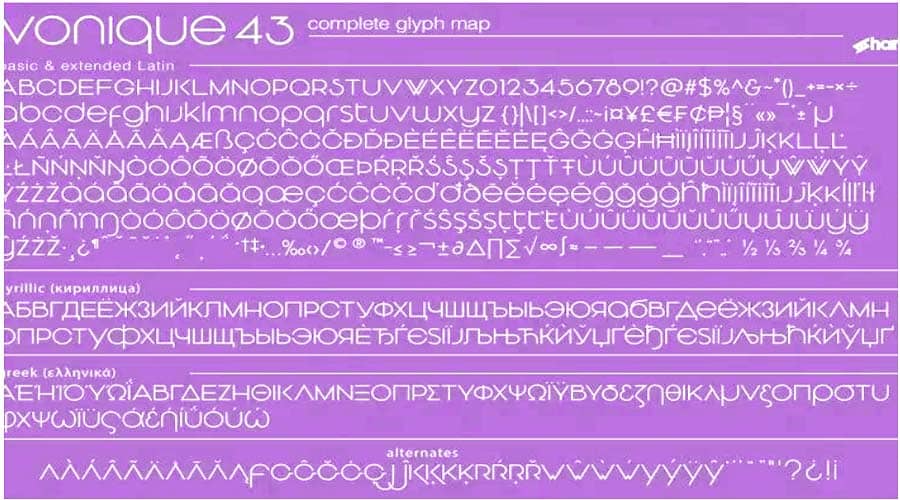
Vonique 43 Typeface
Vonique 43 Font is a sans serif typeface that is both trendy and simple. Sharkshock created and published it on April 10, 2019.
Vonique 43 Typeface is within the 3rd instalment of Vonique family. The Vonique family’s third iteration is designed to stop people in their tracks. Many historical characters return, but it’s the curvy lowercase members that make this typeface unique. The majority are tastefully designed after circles, with very modest descenders and cap heights that match capital letters. The font is only available in ZIP format. This font is considered to be the most immeasurable among its related fonts as Al Chevrola Modern Sans Font or New York Modern Serif Typeface.
Vonique 43 Typeface is a contemporary sans serif typeface with an emphasis on mobility. Vonique 43, like its predecessors, was created for gaze logos rather than daily writing. It’s perfect for a high-end brand, apparel line, or store.
| Name | Vonique 43 Typeface |
| Style | Sans serif font |
| Designer | Sharkshock |